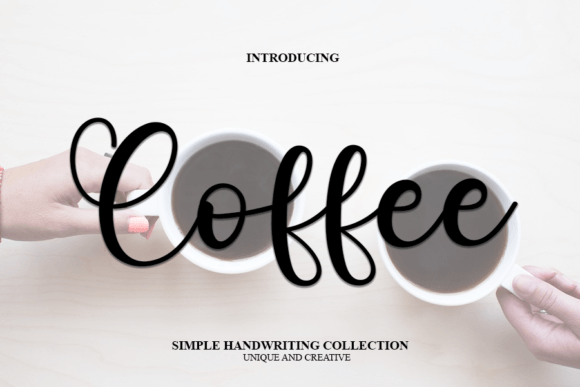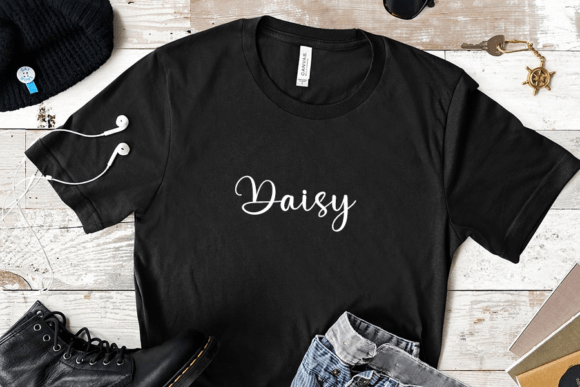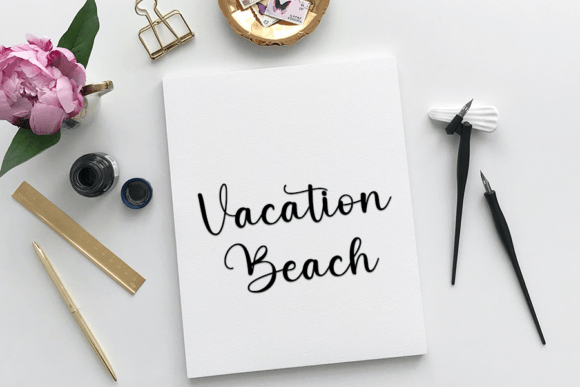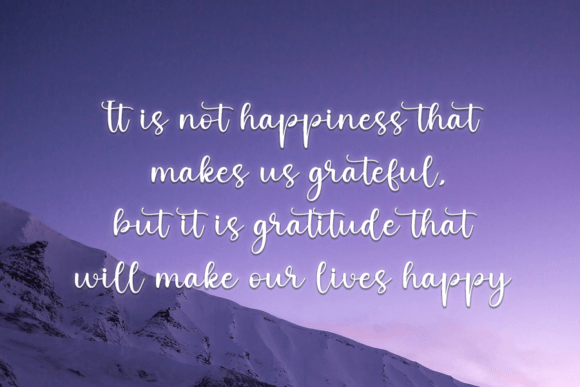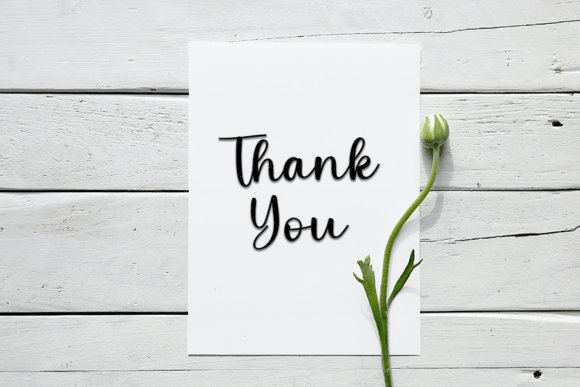
Coffee Font
Coffee: A Unique Script Font with a Warm, Personal Feel
When you want your design to feel as cozy and inviting as a fresh cup of coffee, the Coffee font delivers just that. This unique script font combines elegant strokes with a natural, hand-drawn look—making it perfect for creative projects that call for charm, sophistication, and warmth.
No matter your design purpose, Coffee provides the flexibility and beauty to bring your ideas to life.
Where Can You Use Coffee Font?
Coffee was carefully designed to be versatile, so it adapts seamlessly to a variety of uses. Whether you’re designing for digital platforms or print media, the font maintains clarity while showcasing personality.
Here are some excellent ways to use Coffee font:
• Coffee shop branding and packaging
• Greeting cards and handwritten quotes
• Wedding and event invitations
• Product labels, tags, and stickers
• Digital downloads and printable art
• DIY crafts for Cricut and Silhouette
Thanks to its clean yet handcrafted style, Coffee is ideal for projects that need a personal touch without sacrificing professionalism.
Features That Make Coffee a Unique Script Font
Choosing the right script font often means balancing aesthetics with functionality. Coffee strikes that balance beautifully. Its carefully crafted letters offer graceful curves, while maintaining legibility across sizes and formats.
Here’s what makes Coffee a standout:
• Elegant uppercase and lowercase characters
• Smooth ligatures for better text flow
With its warm tone and refined structure, Coffee is a fantastic addition to any font library. Whether you’re creating social media content, designing a product label, or crafting a wedding invitation, this font fits right in.
Plus, if you’re a fan of selling digital products, Coffee is perfect for:
• Etsy shop branding
• Printable quotes and art
• Logo templates and mockups
• Stylish eBook or planner covers
Bring Life to Your Typography
Fonts like Coffee do more than display words—they tell a story. This font’s hand-drawn essence communicates authenticity, care, and creativity. When paired with soft colors, watercolor illustrations, or vintage textures, Coffee creates a truly captivating aesthetic.
To enhance your designs even further, consider pairing Coffee with:
• Serif fonts for balance
• Pastel or earth-tone color palettes
• Line art or brush-style icons
Whether you’re working on a professional branding project or a fun DIY craft, Coffee is the unique script font that can make your message feel more human, personal, and polished.